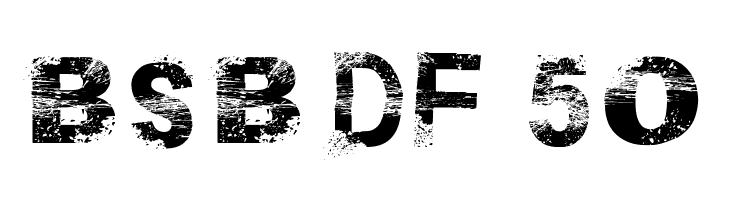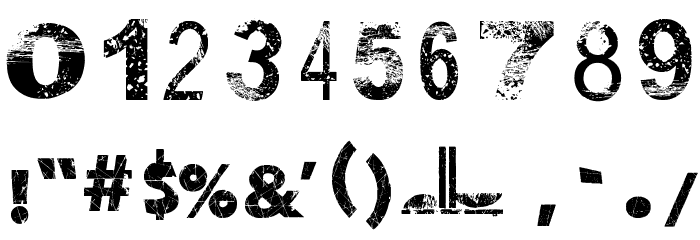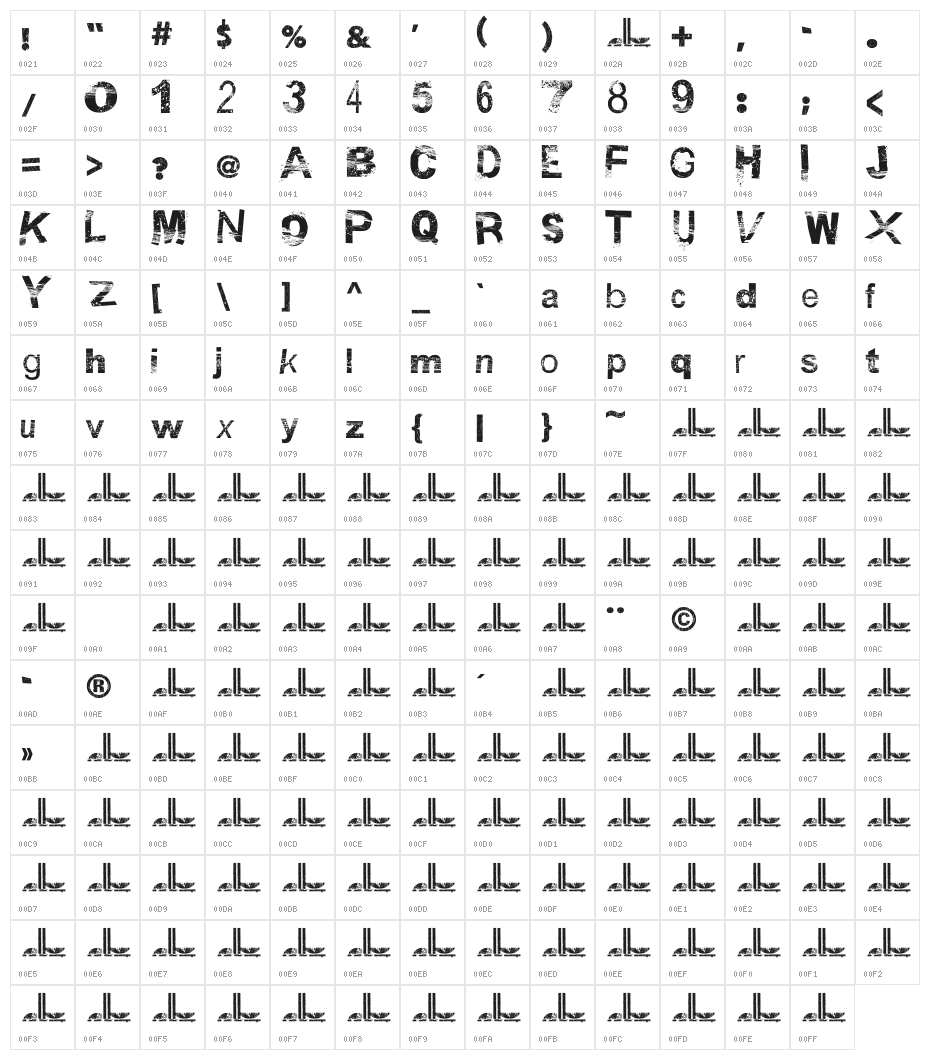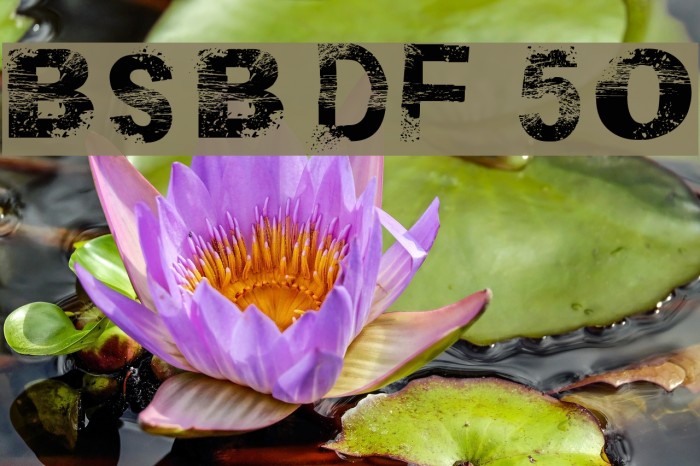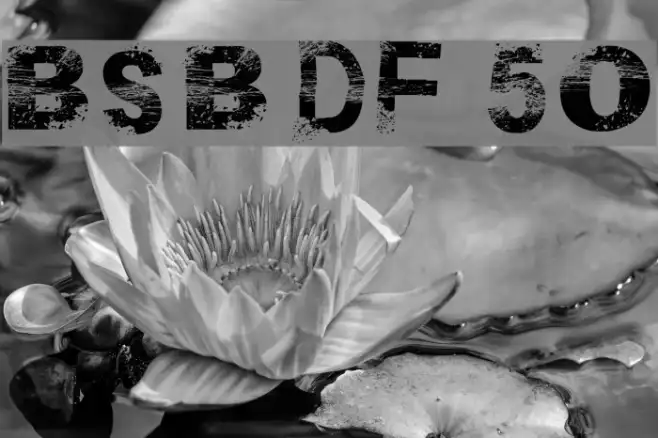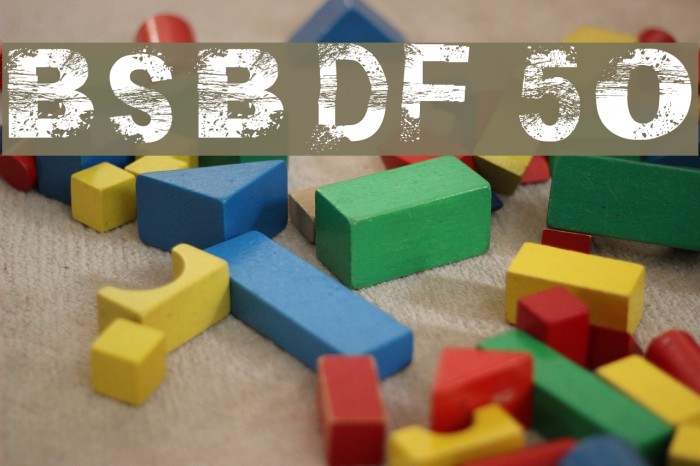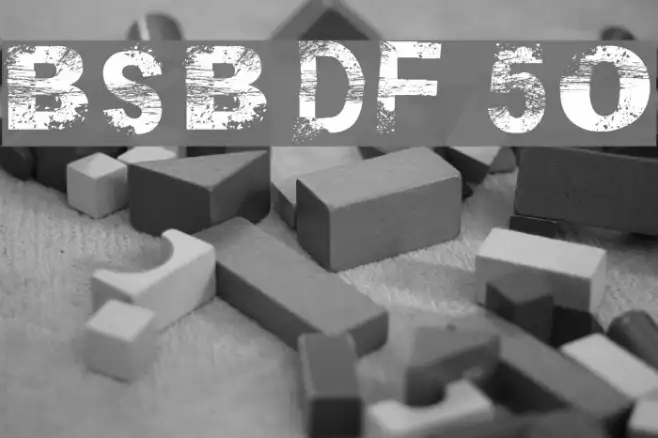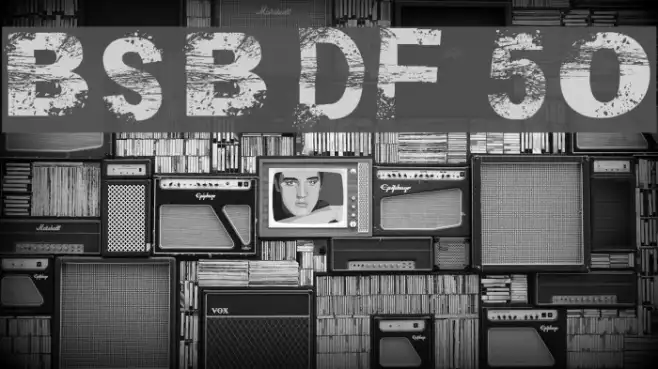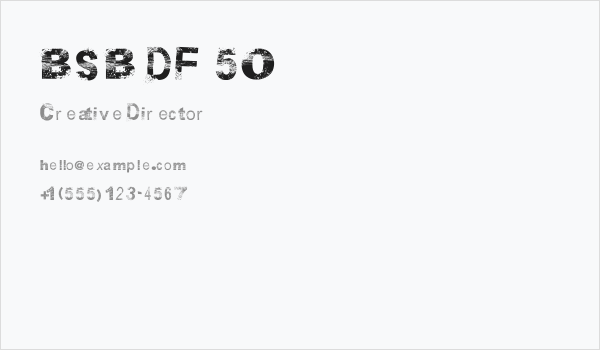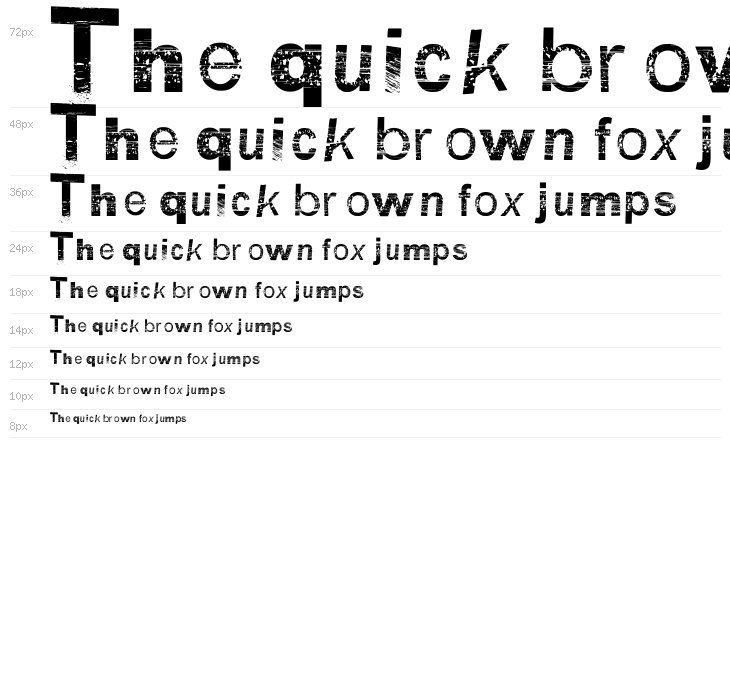
BSB DF 50 Font
BSB DF 50 Description
This font features a distressed, grunge style with a textured appearance that gives it a worn and rugged look. The characters are bold and impactful, with irregular edges and a rough, weathered texture that suggests a sense of age and history. The uppercase and lowercase letters maintain a consistent style, while the numerals and special characters follow the same distressed aesthetic. This font is ideal for projects that require a bold statement or an edgy, urban feel.
| Overall Style | Grunge, Urban, Distressed |
| Proposed Projects | Ideal for album covers, posters, urban-themed designs, and branding that requires a rugged, edgy look. |